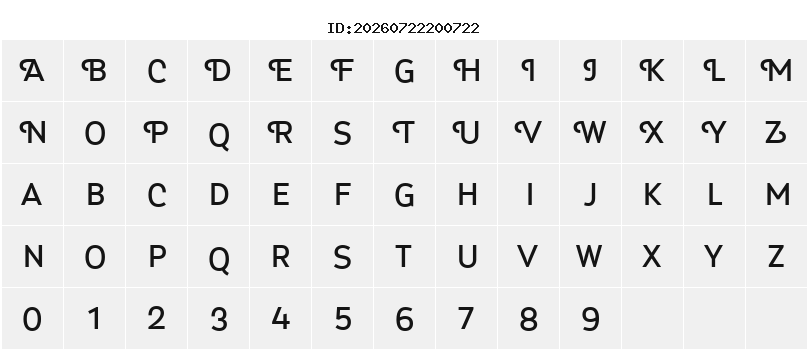
Myra 4F Caps Preview
• Font Name: Myra 4F Caps
• Font ID: SergiyS.Tkachenko: Myra 4F Caps Bold: 2012
• Full Font Name: Myra 4F Caps
• Designer: Ткаченко Сергій Сергійович
• Manufacturer: Ткаченко Сергій Сергійович (Кременчук, Україна)
About Myra 4F Caps.ttf
Myra 4F Caps.ttf is a modern, elegant sans-serif font designed for ultimate readability and visual harmony. Perfect for branding, headlines, web design, and print materials.